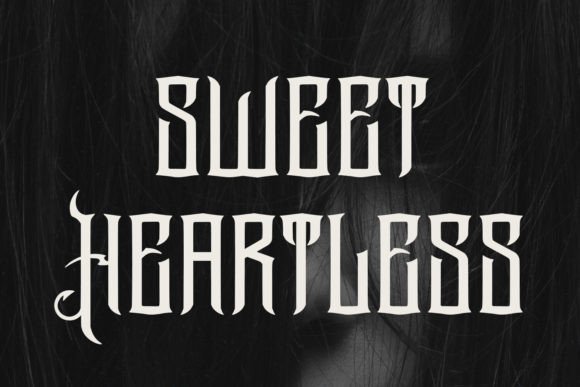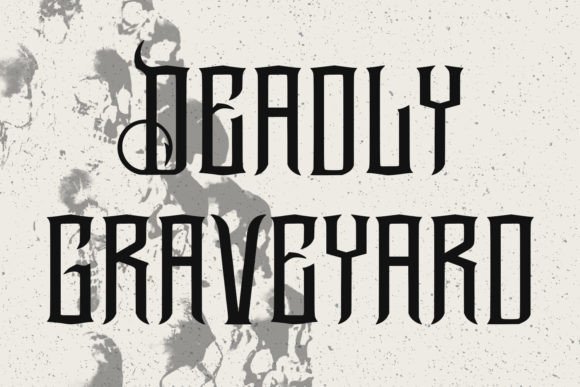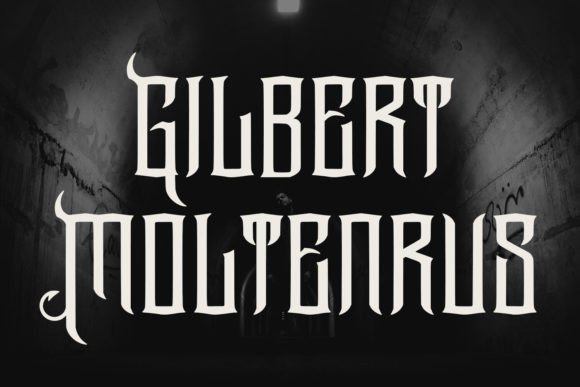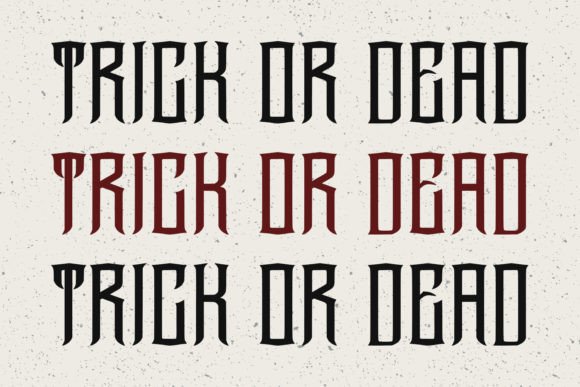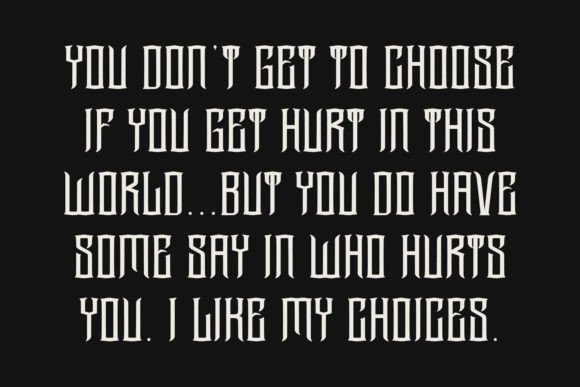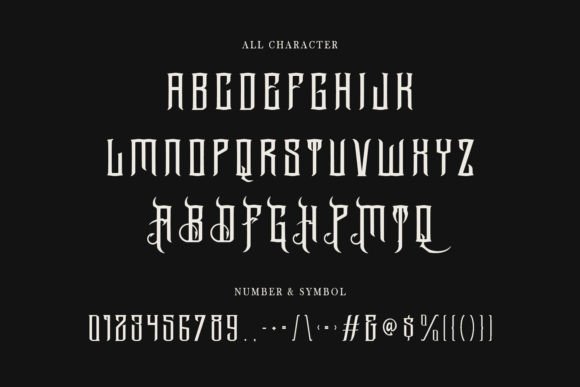
Introducing Arzzell Font: A Stylish and Eye-Catching Typeface with a Classic Gothic Feel
In the world of typography, fonts play a crucial role in conveying the tone and personality of a brand or design. For designers and crafters looking to add a touch of vintage elegance and drama to their work, the Arzzell Blackletter Display Font is an excellent choice. This stylish and eye-catching typeface boasts a classic, Gothic feel that is sure to make any text stand out.
What is Arzzell Blackletter Display Font?
Arzzell Blackletter Display Font is a bold, decorative typeface that is perfect for headlines and titles. Its intricate, Gothic-inspired letters are designed to add a touch of sophistication and elegance to any design. Whether you’re working on a branding project, a craft project, or simply looking to add some flair to your digital creations, Arzzell Font is an excellent choice.
Key Features of Arzzell Font
- Classic Gothic Feel: Arzzell Font boasts a classic, Gothic feel that is reminiscent of traditional printing techniques.
- Bold and Decorative: The font’s bold, decorative letters are perfect for headlines and titles, making it an excellent choice for designers looking to add some drama to their work.
- Vintage Elegance: Arzzell Font’s intricate, Gothic-inspired letters add a touch of vintage elegance to any design.
- Highly Versatile: The font is highly versatile and can be used for a wide range of design projects, from branding and advertising to crafting and digital art.
Uses for Arzzell Font
Arzzell Blackletter Display Font is perfect for a variety of design projects, including:
- Branding and Advertising: Use Arzzell Font to create bold, eye-catching headlines and titles that will help your brand stand out.
- Crafting and Scrapbooking: Add a touch of vintage elegance to your craft projects with Arzzell Font’s intricate, Gothic-inspired letters.
- Digital Art and Design: Use Arzzell Font to add some drama and sophistication to your digital creations, from social media graphics to blog posts.
- Wedding and Event Design: Arzzell Font’s classic, Gothic feel makes it perfect for wedding and event design, from invitations to signage.
Tips for Using Arzzell Font
To get the most out of Arzzell Blackletter Display Font, here are a few tips to keep in mind:
- Use it Sparingly: Arzzell Font is a bold, decorative typeface, so use it sparingly to avoid overwhelming your design.
- Pair it with a Simple Font: Pair Arzzell Font with a simple, clean font to create visual interest and add contrast to your design.
- Experiment with Colors and Textures: Arzzell Font looks great in a variety of colors and textures, so don’t be afraid to experiment and find the perfect combination for your design.
Arzzell Blackletter Display Font is a stylish and eye-catching typeface that is perfect for designers and crafters looking to add a touch of vintage elegance and drama to their work. With its classic, Gothic feel and bold, decorative letters, Arzzell Font is sure to make any text stand out. Whether you’re working on a branding project, a craft project, or simply looking to add some flair to your digital creations, Arzzell Font is an excellent choice.